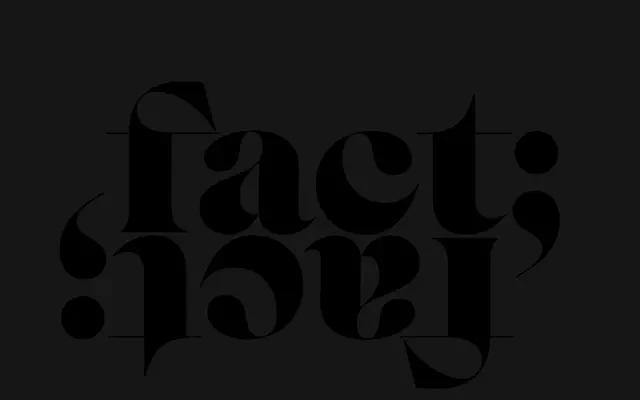
Africa
Newglyph · Ian Party
A three-style display collection by Ian Party drawing on Caslon and calligraphic lettering to produce extreme stroke contrast and sharp, distinctive terminals.
Three styles — Drylands, Rainfall and Cliff — each interpret high contrast and organic calligraphic structure differently, with Africa Cliff pushing contrast to its furthest point through mega-bold strokes paired against hairline lines. Details such as fish-hook serifs on C and G, sharp peaked terminals on E, F and Z, and a blooming ampersand give the collection a distinctive visual character suited to editorial display and identity work. The 359-glyph set covers an extensive range of Latin-based languages including many African languages.
Extreme stroke contrast inspired by Caslon and calligraphic lettering, with sharp peaked terminals and hook-like serifs; designed expressly for large display use rather than text setting.